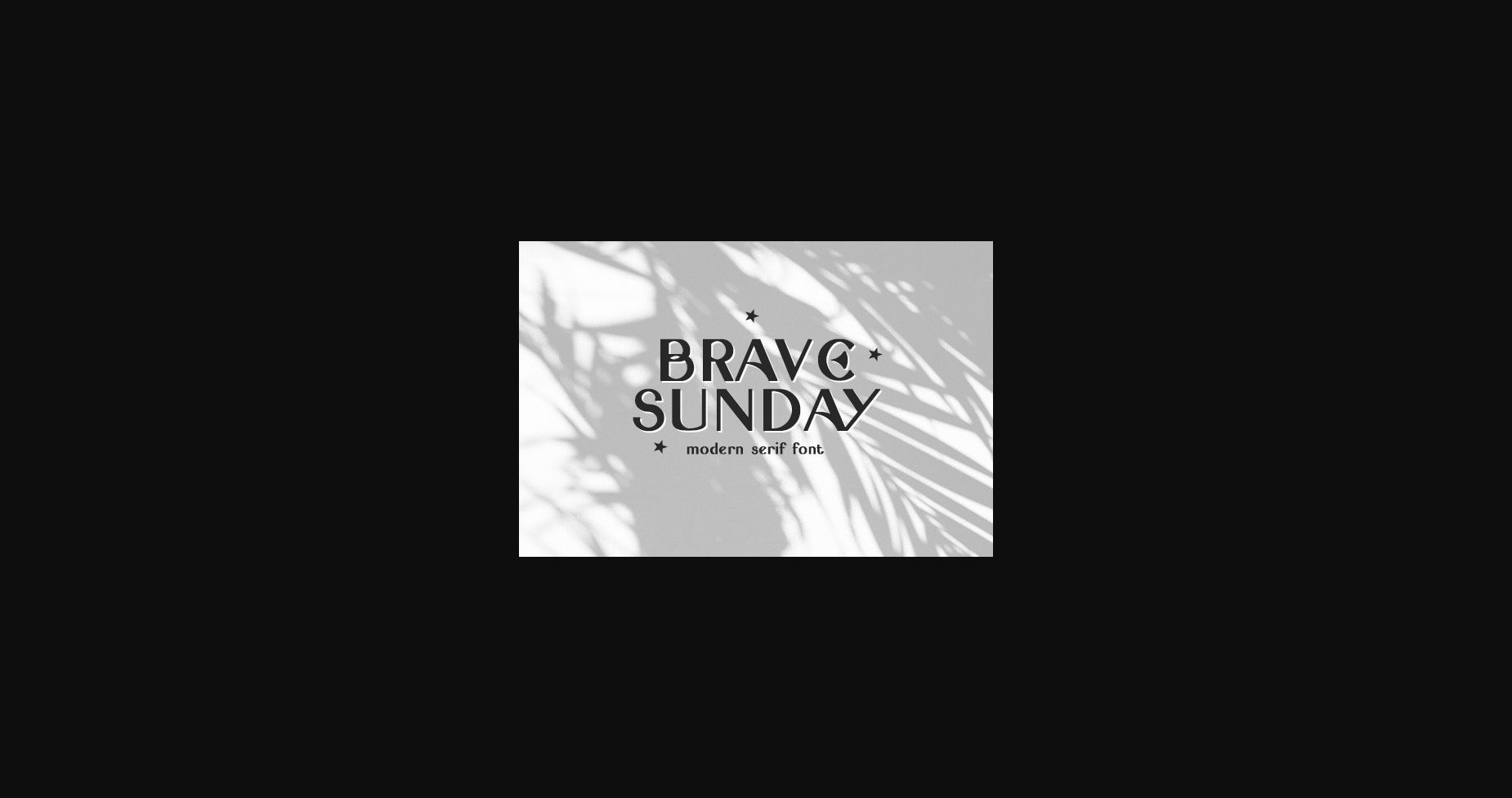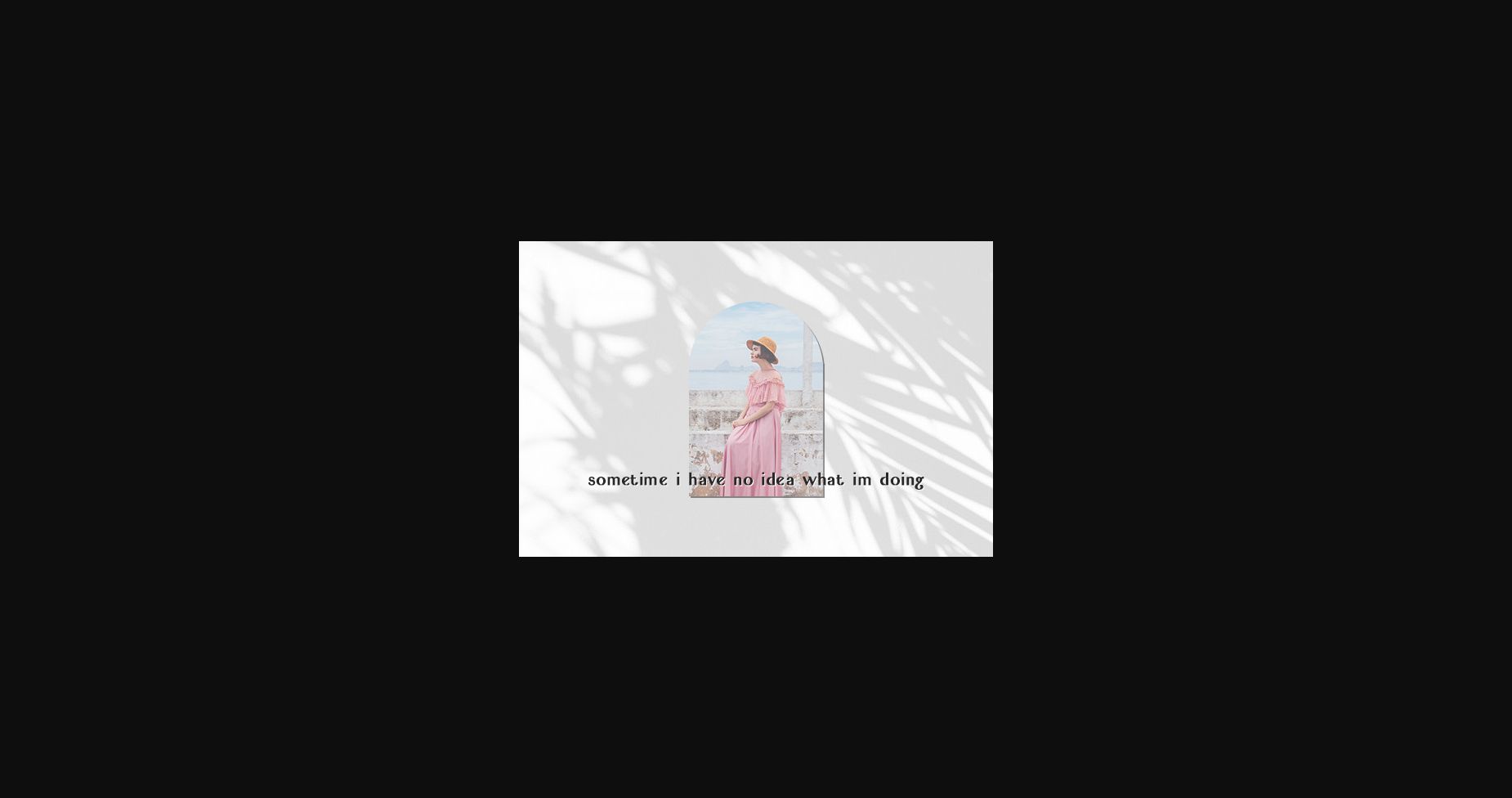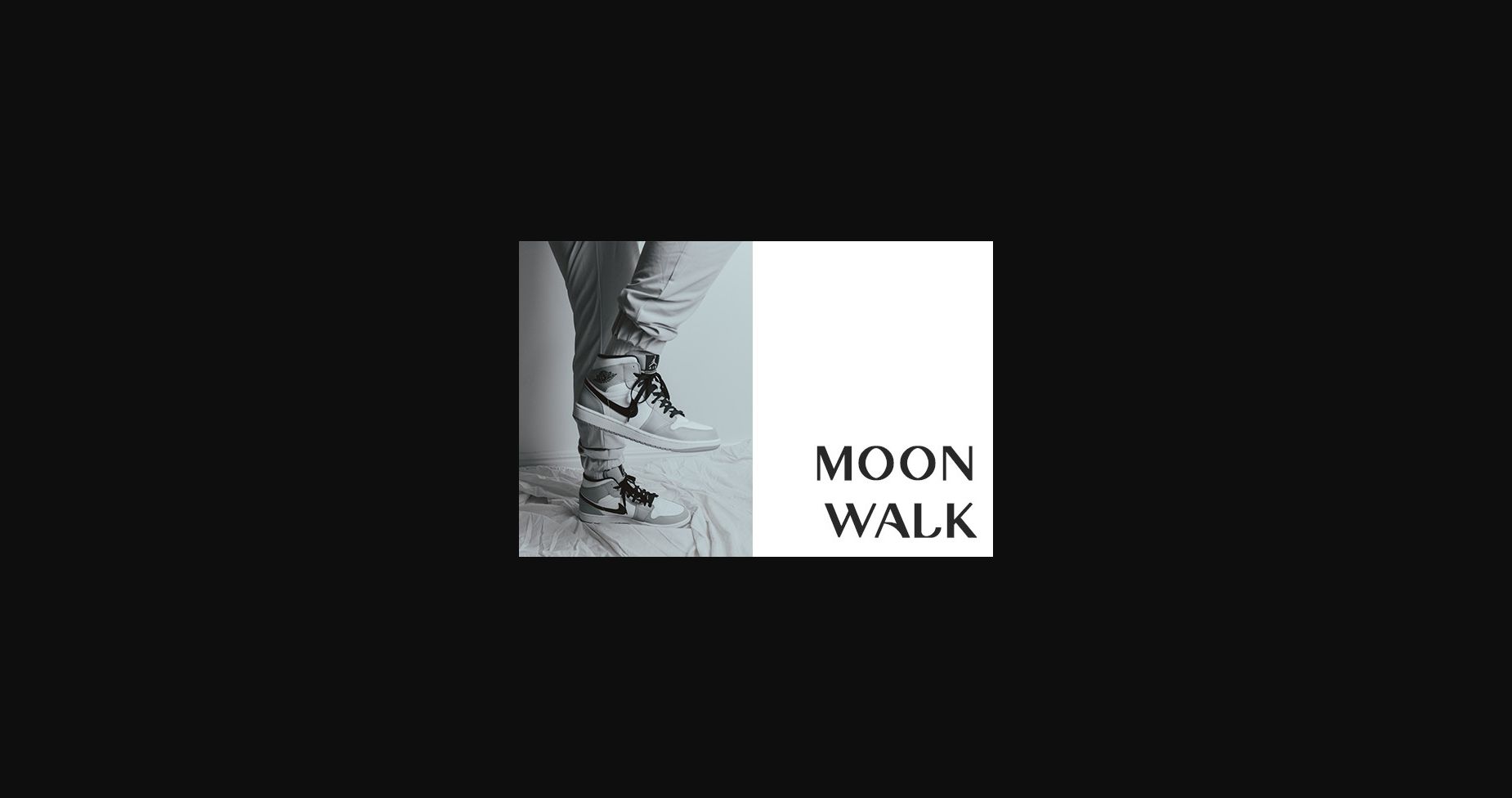
About Brave Sunday Font
Brave Sunday is an elegant and classy sans serif font. Not too thin and not too thick, balanced and varied, this font was designed to enhance the beauty of your projects.